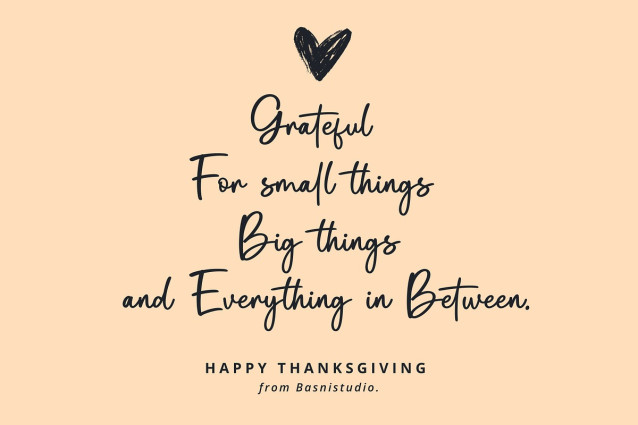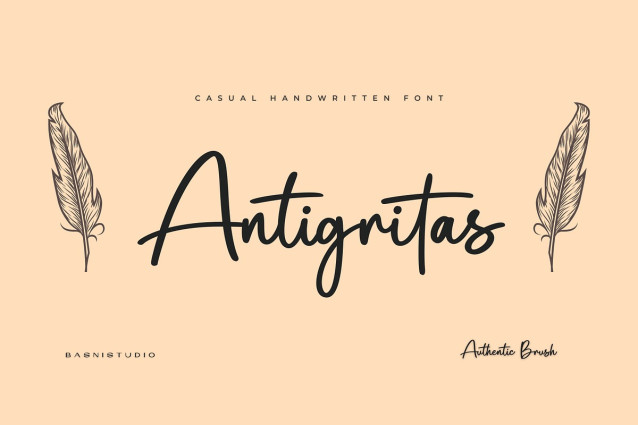
Antigritas Handwriting Font
Antigritas Handwriting Font – a Chic Handwritten Font Handwritting Font Created with real pen strokes for a natural look and casual touch to everything from branding and social media to invitations and packaging.Natural & Casual – Perfect for tagline, quotes, greeting cards, and more Authentic Handwritten Feel – Created with real pen strokes for a natural look Easy to Use – Works seamlessly with all major design programs Whether you’re building a powerful brand identity or crafting a standout design,Antigritas a Handwritting Font Created with real pen strokes for a natural look gives you the creative edge you need.